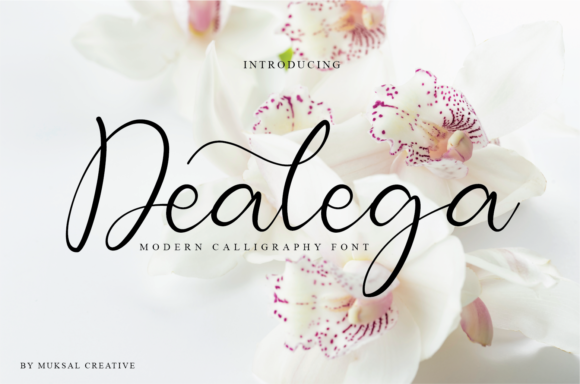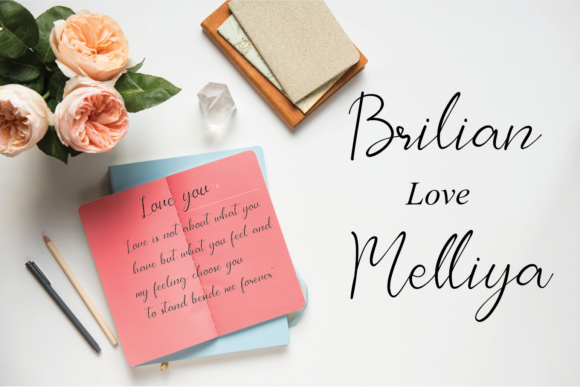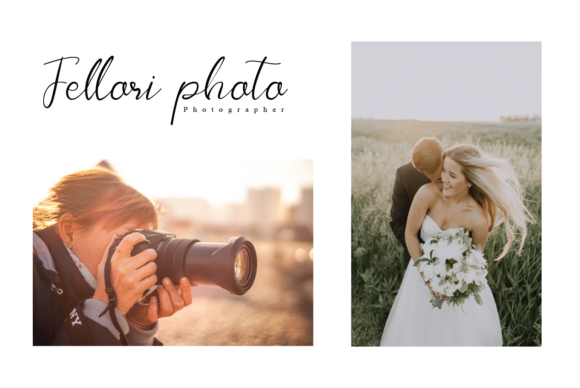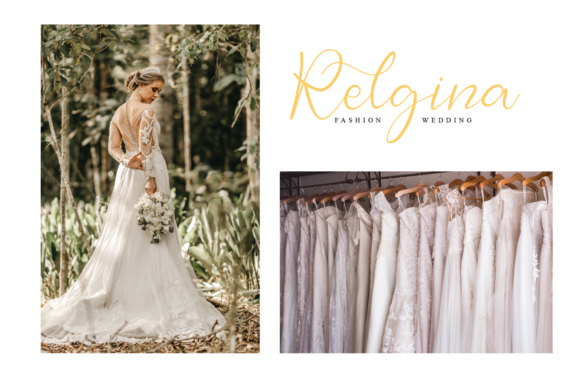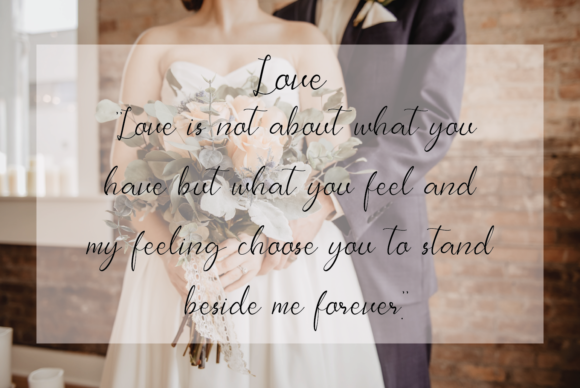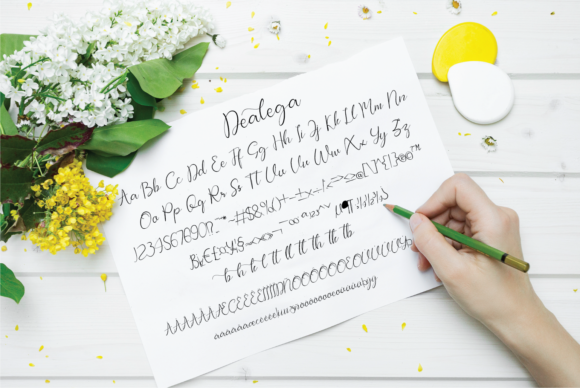
Dealega Font
About Dealega Font
Dealega is a brand new handwritten font.
Fall in love with its elegant style and use it to create gorgeous wedding invitations, beautiful stationary art, eye-catching social media posts, and cute greeting cards.